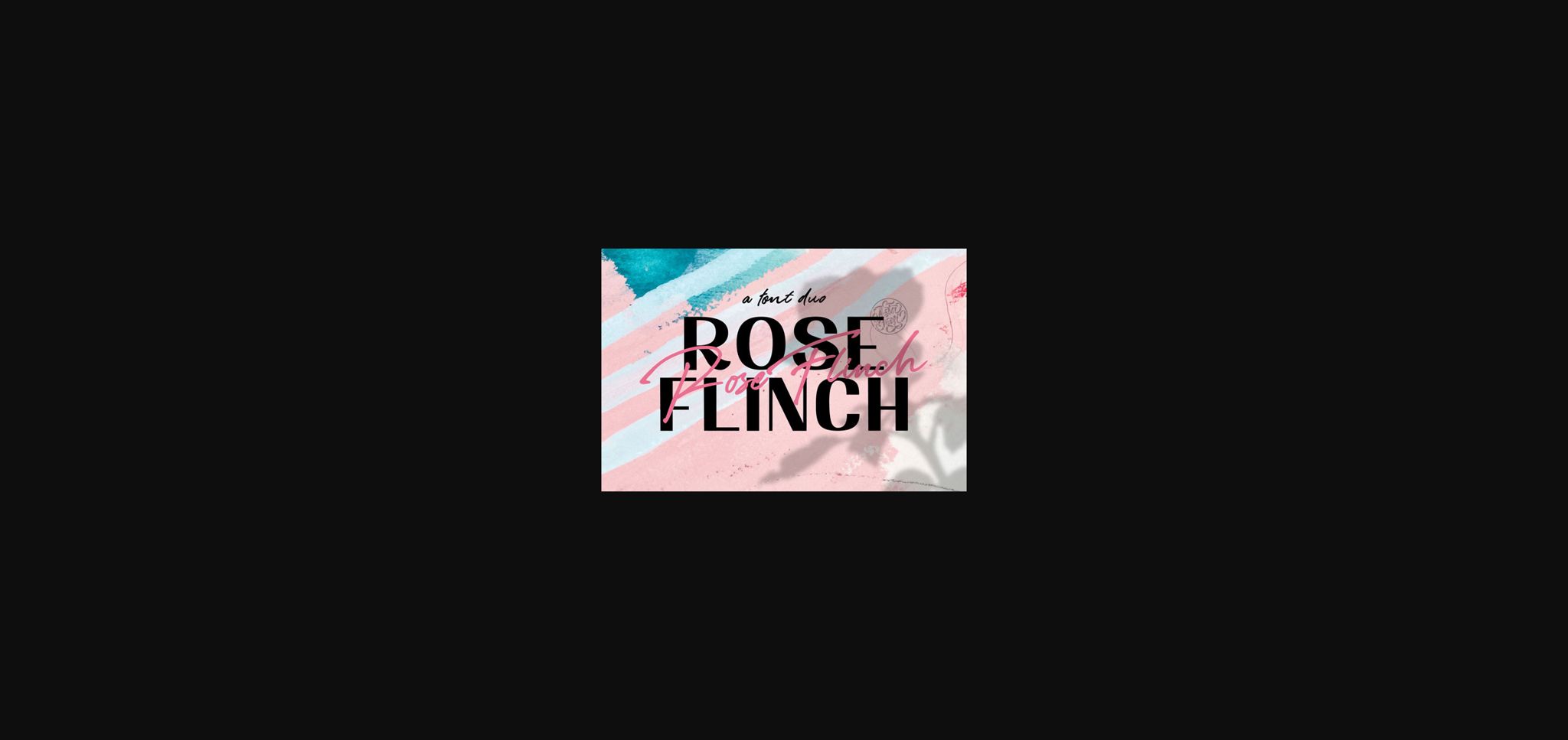
About Rose Flinch Font
Rose Flinch is a spectacular duo font (sans serif and script). Incredibly versatile, this font fits a wide pool of designs, elevating them to the highest levels. Add this font to your favorite creative ideas and notice how it makes them come alive!